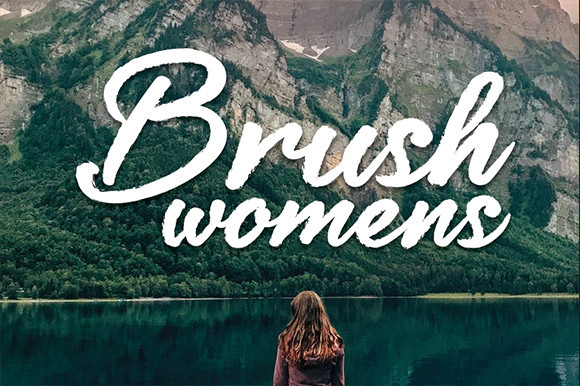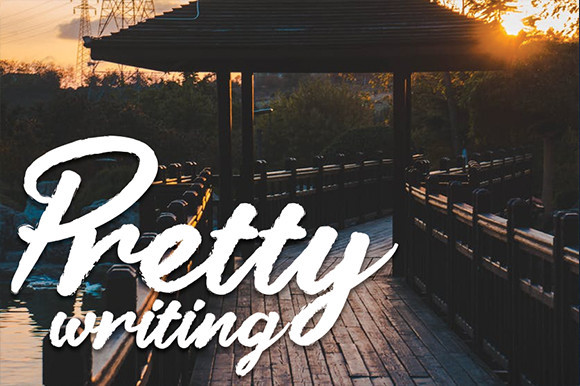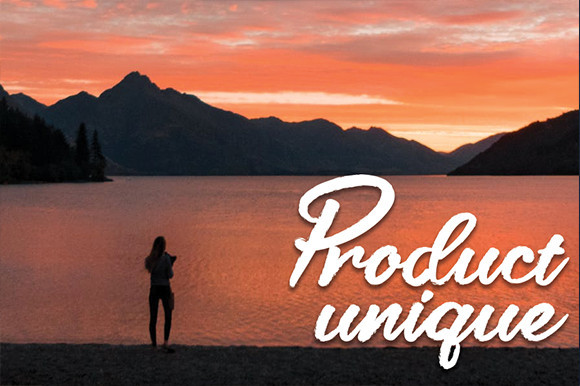
Brush Womens Font
Brush Womens is a casual, fun display font, created by using a brush pen. Clean and a little bit quirky, this font is the perfect fit for all of your logos, branding, social media, and crafty DIY projects.